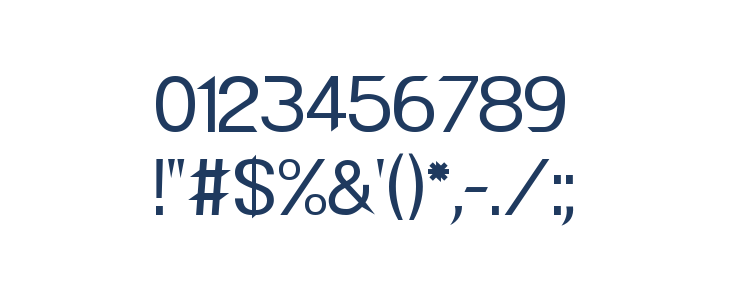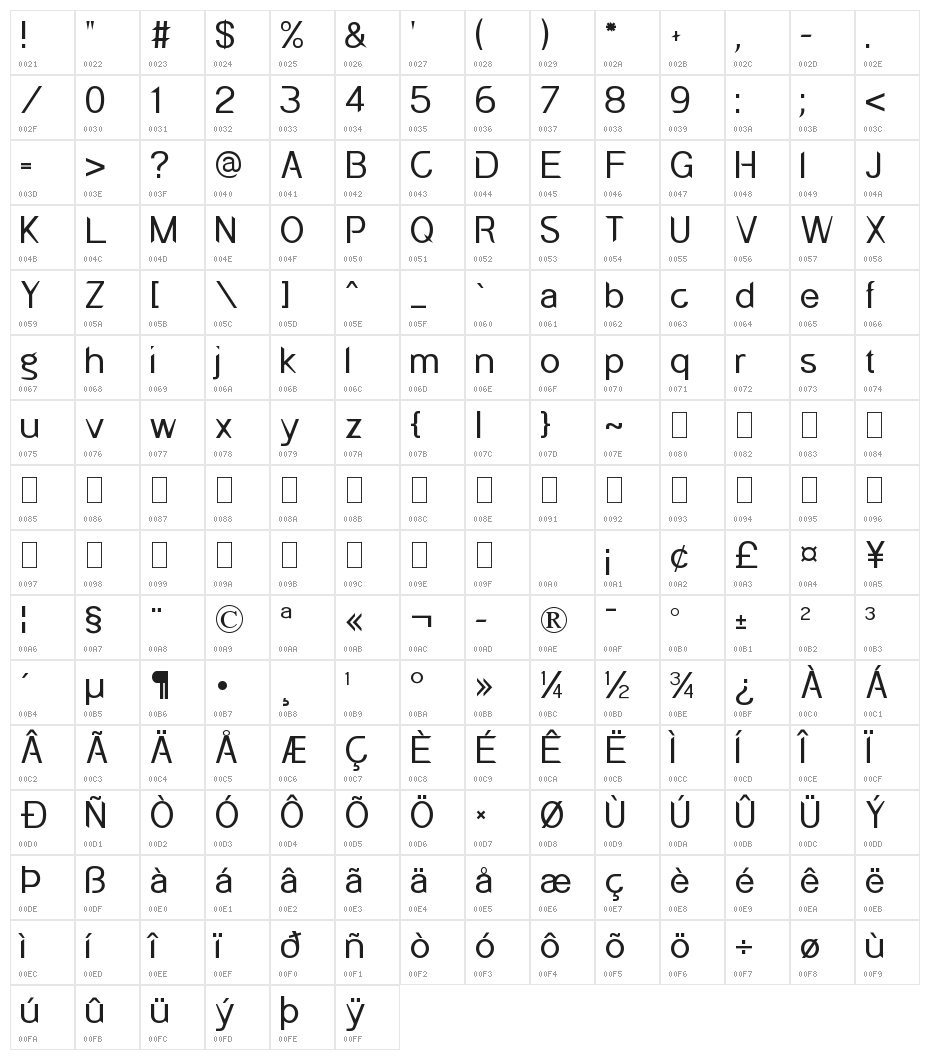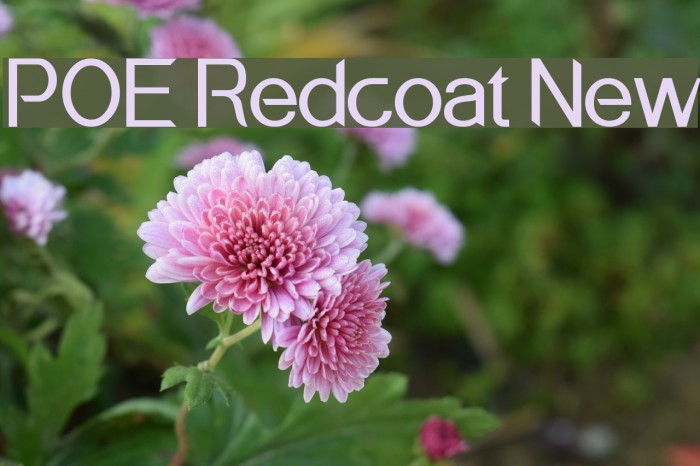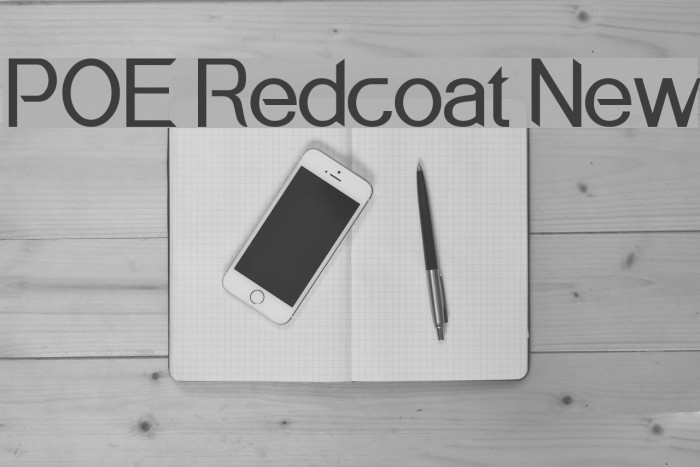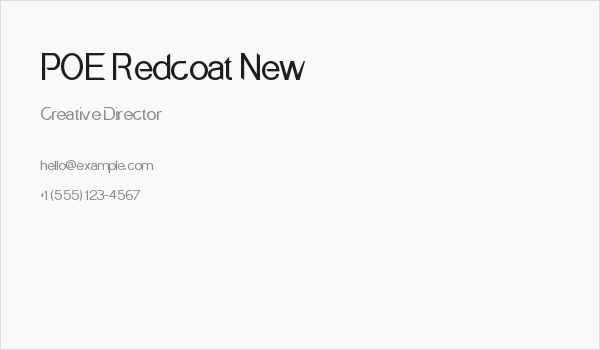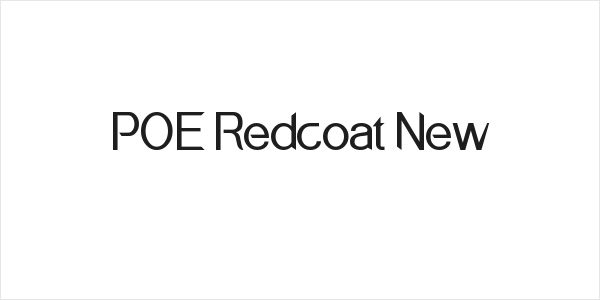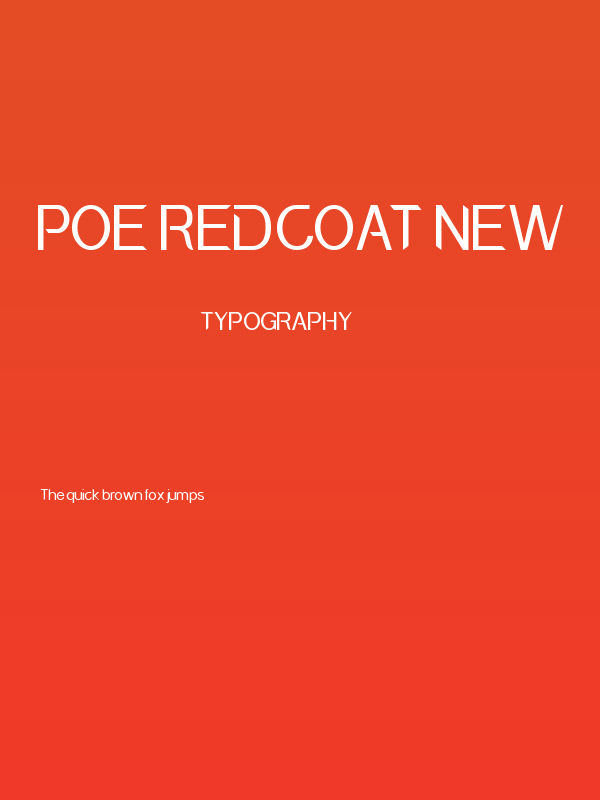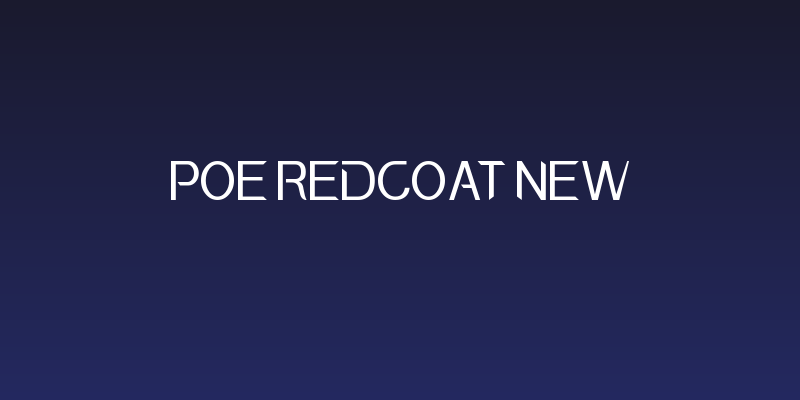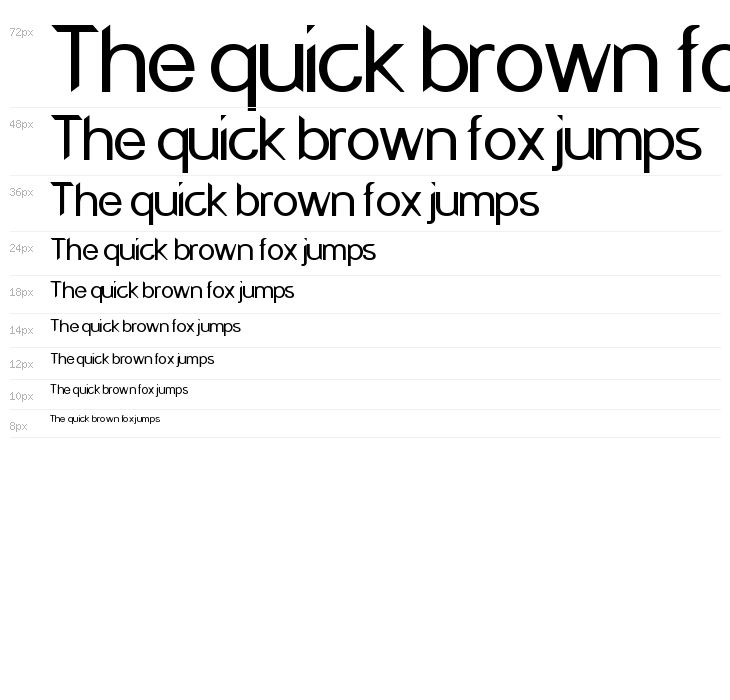
POE Redcoat New Font
POE Redcoat New Description
This font exhibits a modern and clean design with a sans-serif style. The characters are well-defined with a consistent stroke width, giving it a uniform appearance. The uppercase letters are bold and assertive, while the lowercase letters maintain a smooth, rounded form. Numbers are clear and legible, making them suitable for various applications. The special characters are distinct and integrate seamlessly with the rest of the typeface. Overall, the font's simplicity and clarity make it versatile for both digital and print media.